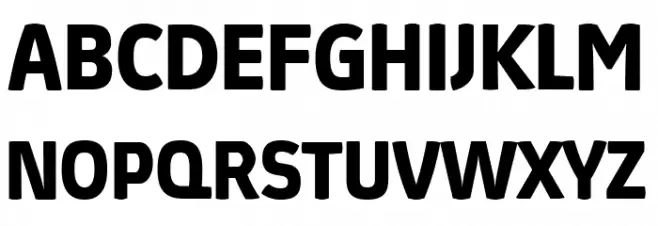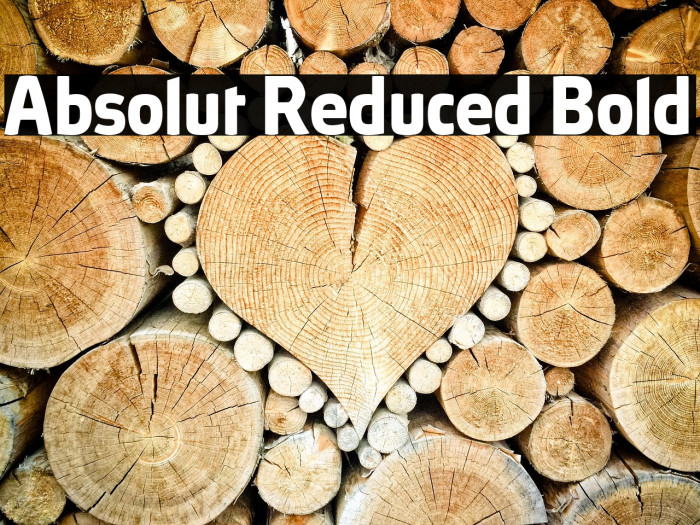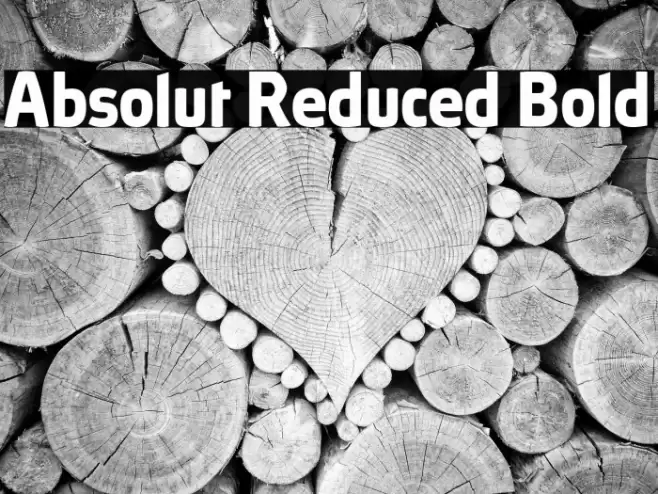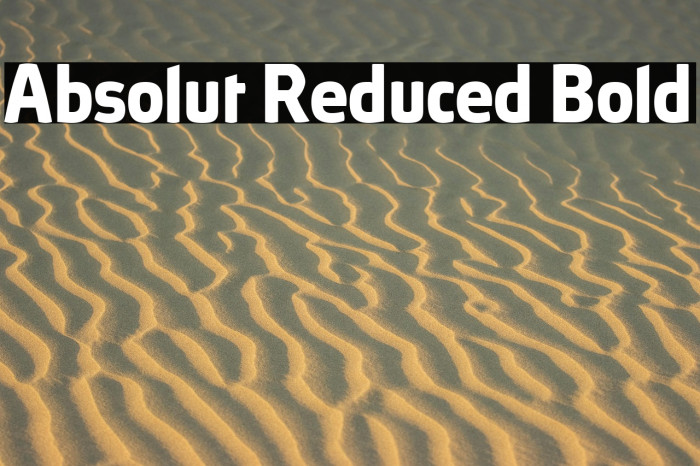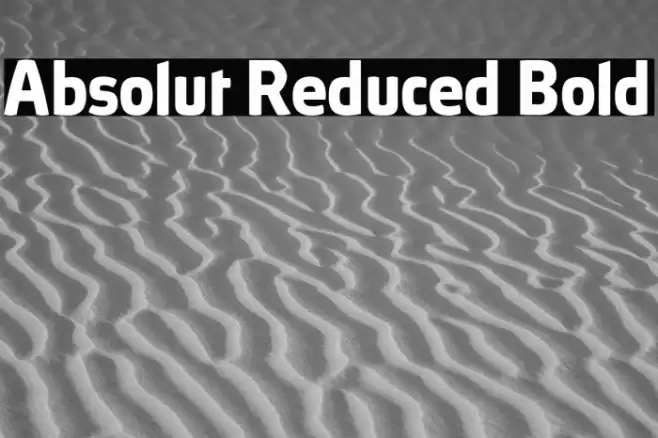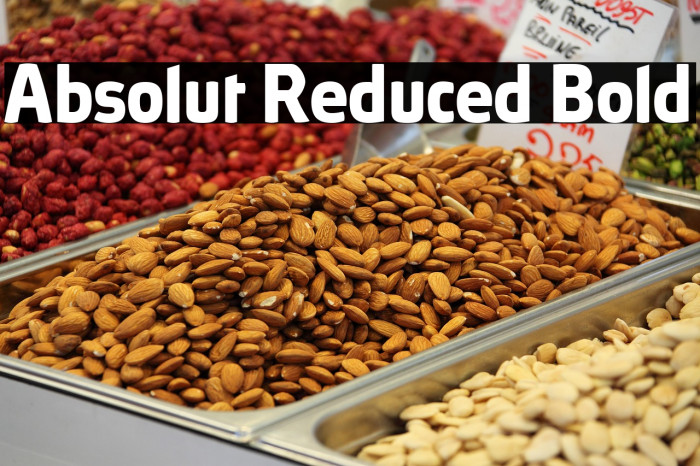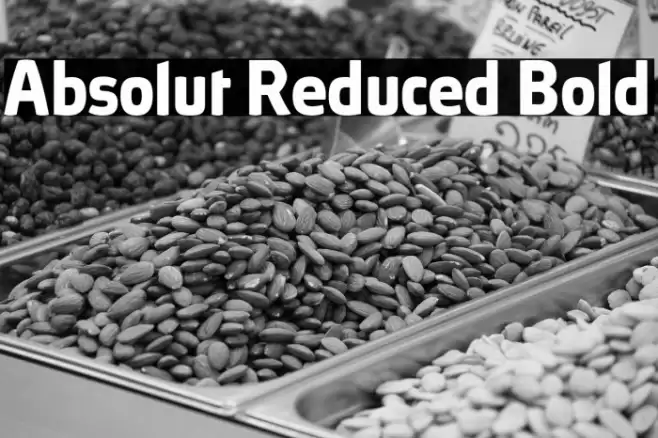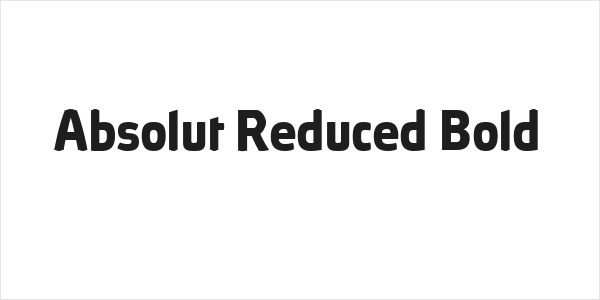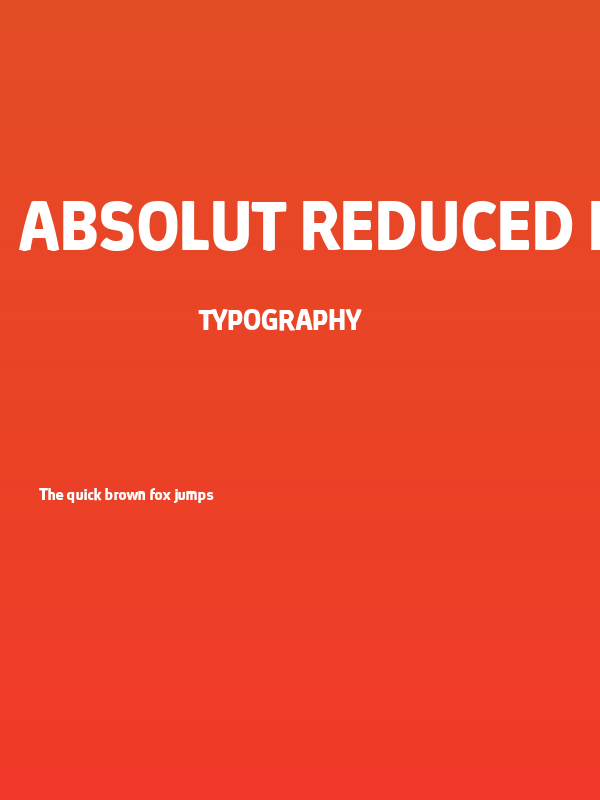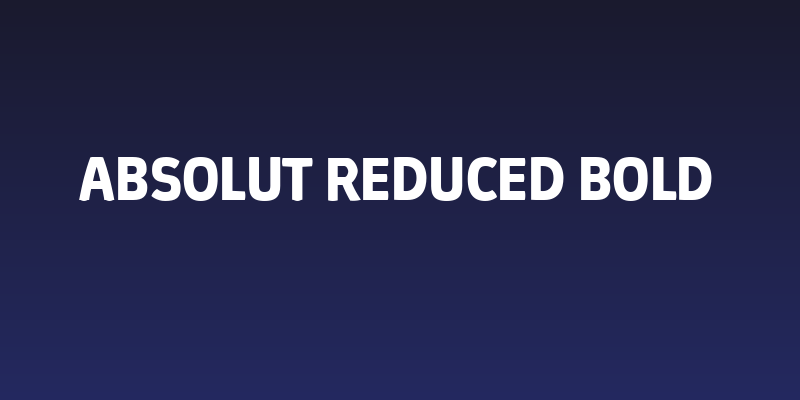
Absolut Reduced Bold Font
Absolut Reduced Bold Description
This typeface features bold, rounded characters with a modern and clean aesthetic. The uppercase and lowercase letters are well-balanced, with a consistent stroke width that gives the font a strong presence. The characters are slightly condensed, which allows for efficient use of space without sacrificing readability. The design is straightforward yet impactful, making it suitable for a variety of applications. The font's simplicity is complemented by its subtle curves, adding a touch of softness to its overall bold appearance.
| Proposed Projects | Ideal for branding, advertising, headlines, and digital media where a strong, modern presence is needed. |